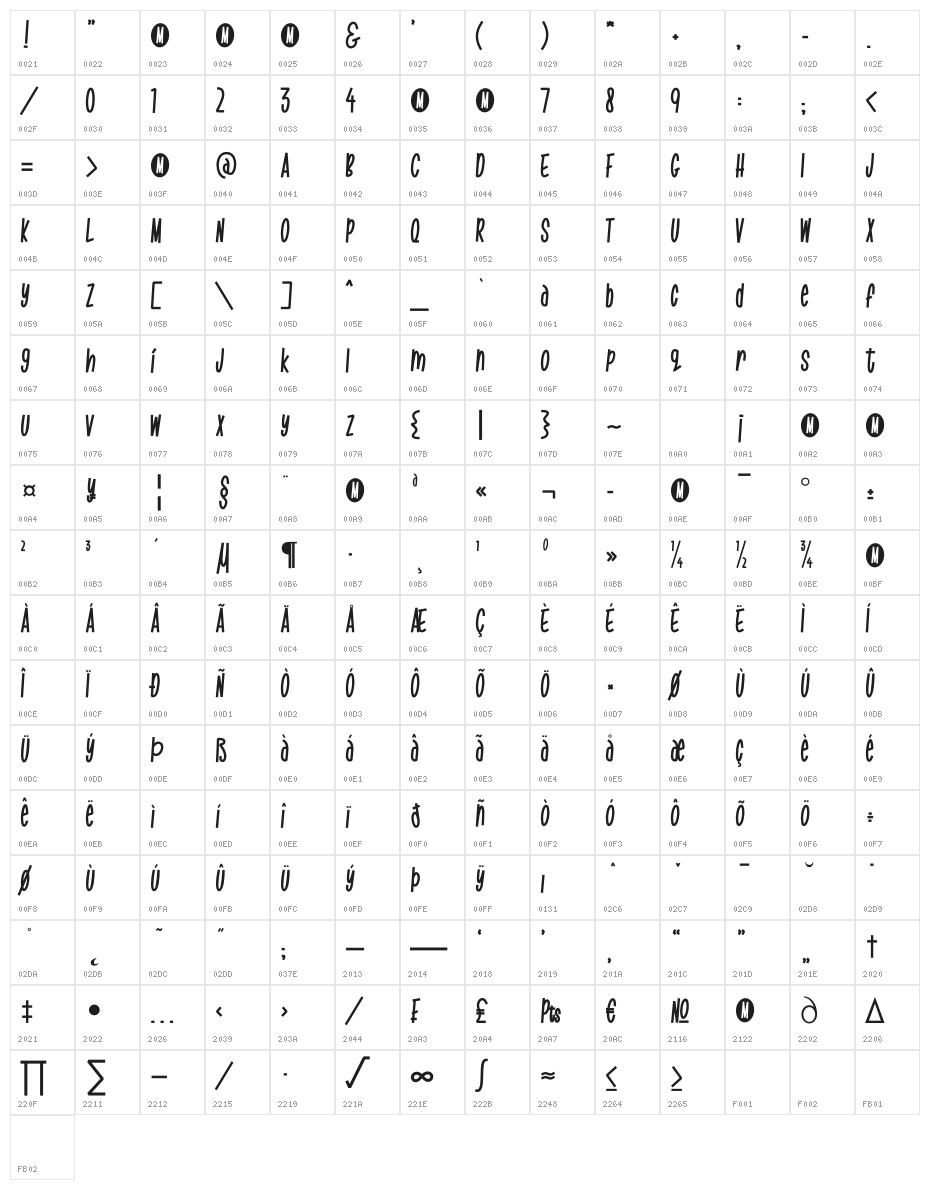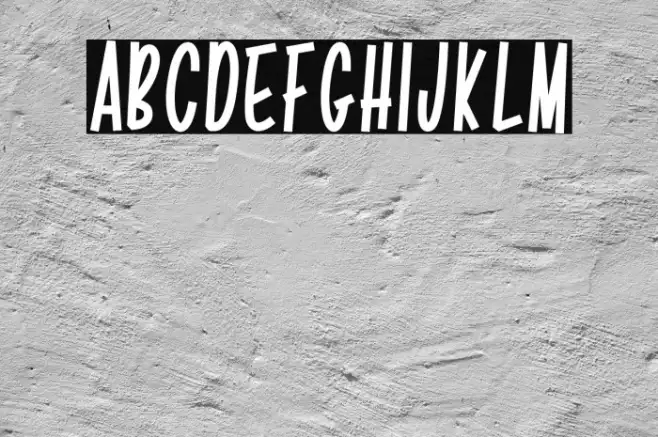
Markisa Font
Markisa Description
This font features a playful and dynamic style with a slightly irregular, hand-drawn appearance. The uppercase letters are bold and slightly tilted, giving a sense of movement and energy. The lowercase letters maintain a consistent style, with some characters having unique, quirky shapes that add to the font's charm. The numbers are bold and match the playful style of the letters. Special characters are creatively designed, maintaining the overall whimsical feel. This font is perfect for projects that require a fun and engaging look.
| Use Case | Headlines, Posters, Branding |
| Proposed Projects | Ideal for children's books, playful branding, posters, and creative invitations. |